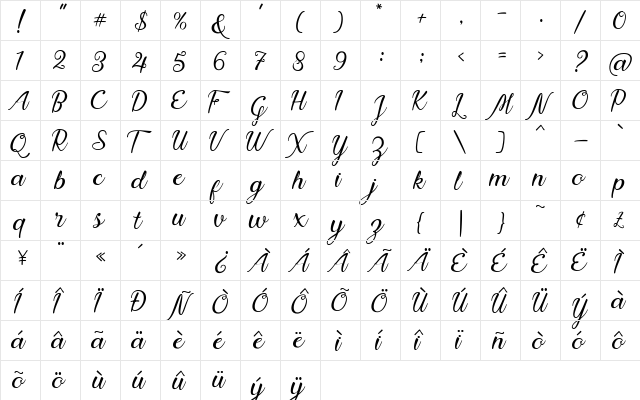
Nadhine Script Regullar
| Foundry | ianmikraz |
| Designer | ianmikraz |
Design Context for Nadhine Script Typeface
Nadhine Script flows with the natural rhythm of handwritten lettering, making it ideal for designs that call for warmth and personal expression.
Font Pairing: Combine Nadhine Script with a simple geometric sans for maximum contrast — the tension between flowing curves and clean structure is a classic typographic pairing.
Pro Tip: Pair Nadhine Script with a clean sans-serif for supporting text. The contrast between fluid script and geometric structure creates an elegant typographic hierarchy.